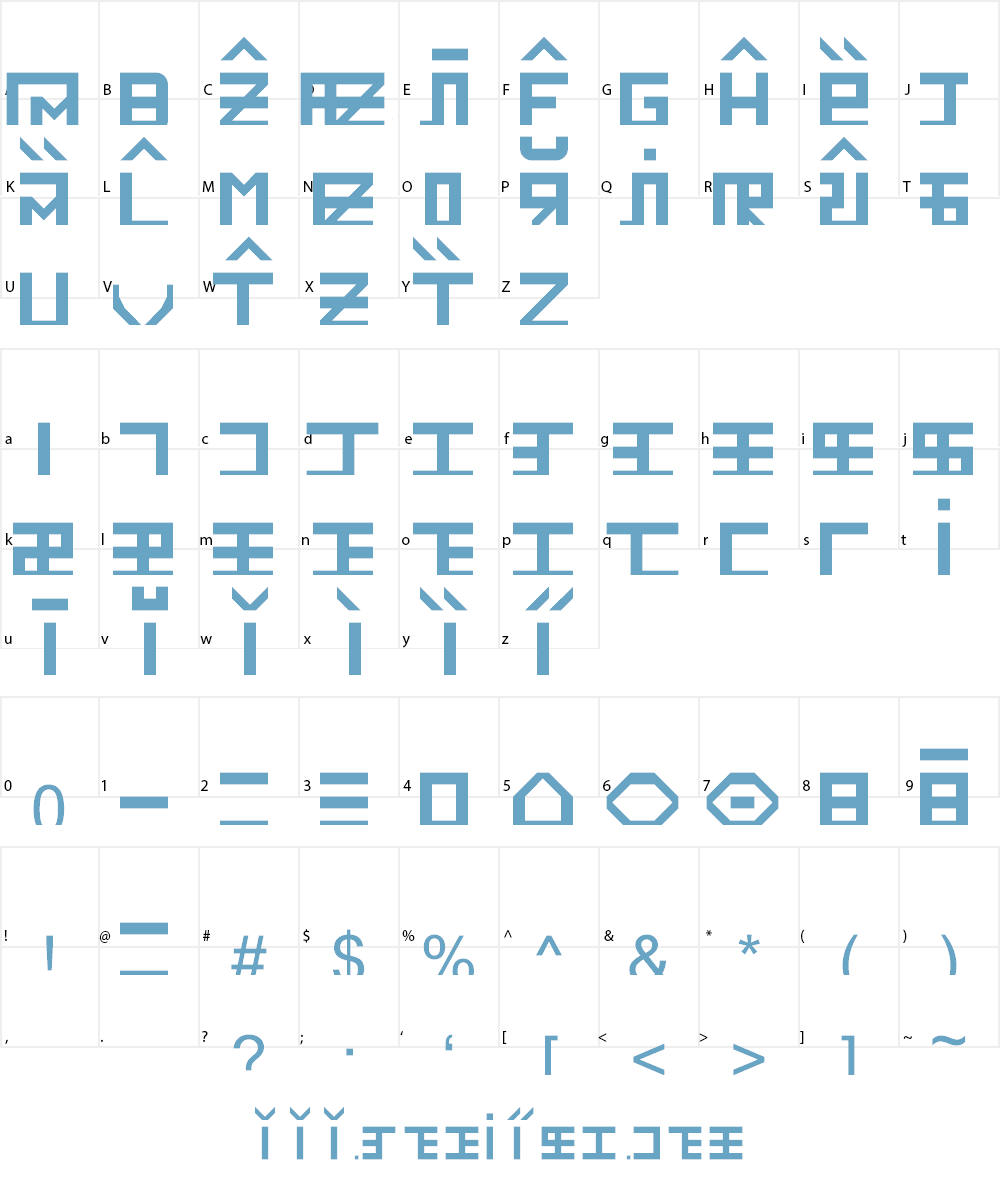
simple list of the amino acids based on their alphabetical coding and the matras/didatrics applied are acute and big accent and the consants combined